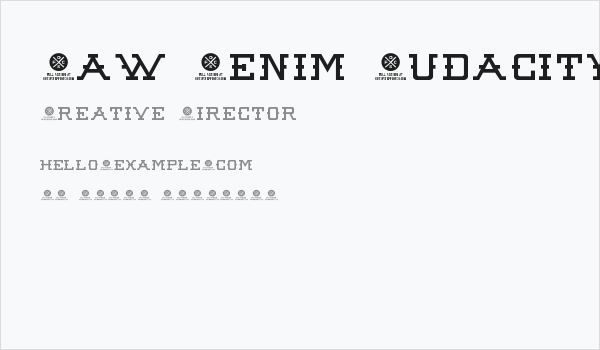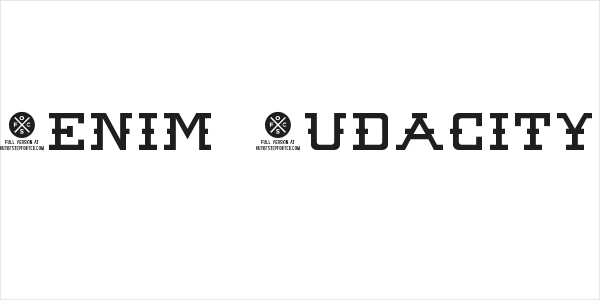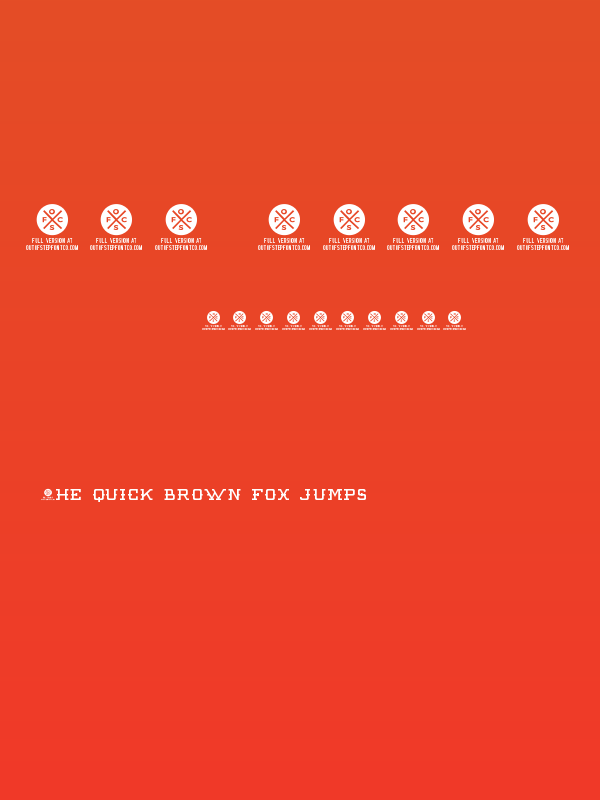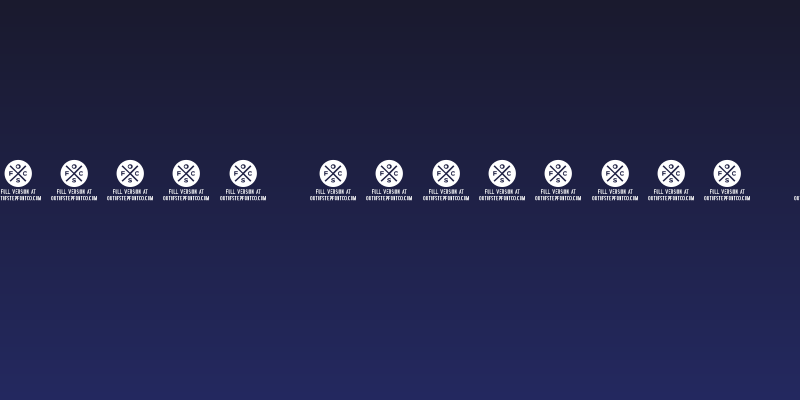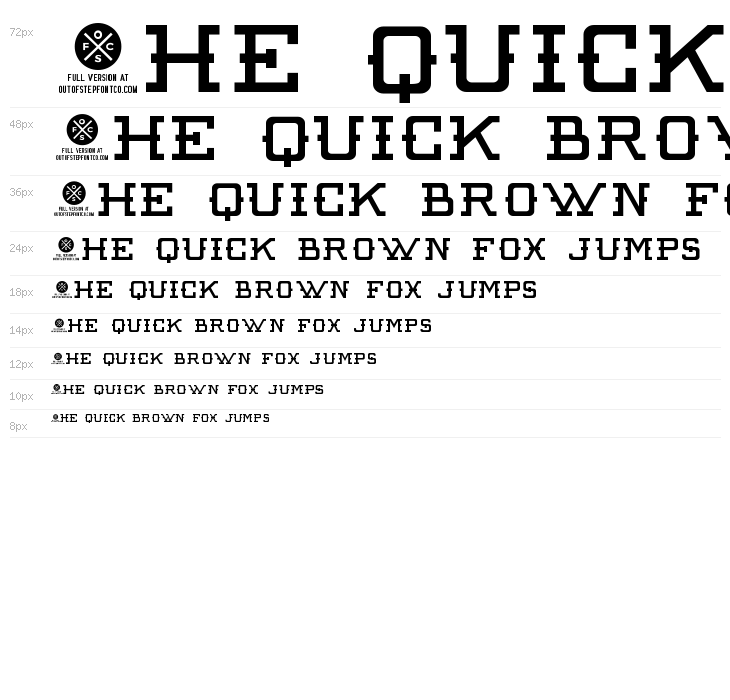
Raw Denim Audacity Demo Font
Raw Denim Audacity Demo Description
This font features a bold, industrial design with a strong, structured appearance. The characters are crafted with a slab serif style, giving them a robust and sturdy look. The strokes are consistent in width, providing a uniform and balanced feel. The font's geometric shapes and sharp angles contribute to its modern and mechanical aesthetic, making it ideal for projects that require a bold and impactful statement. The uppercase letters are particularly striking, with their solid forms and clear legibility.
| Proposed Projects | Ideal for branding, posters, headlines, and any design requiring a bold, impactful statement. |